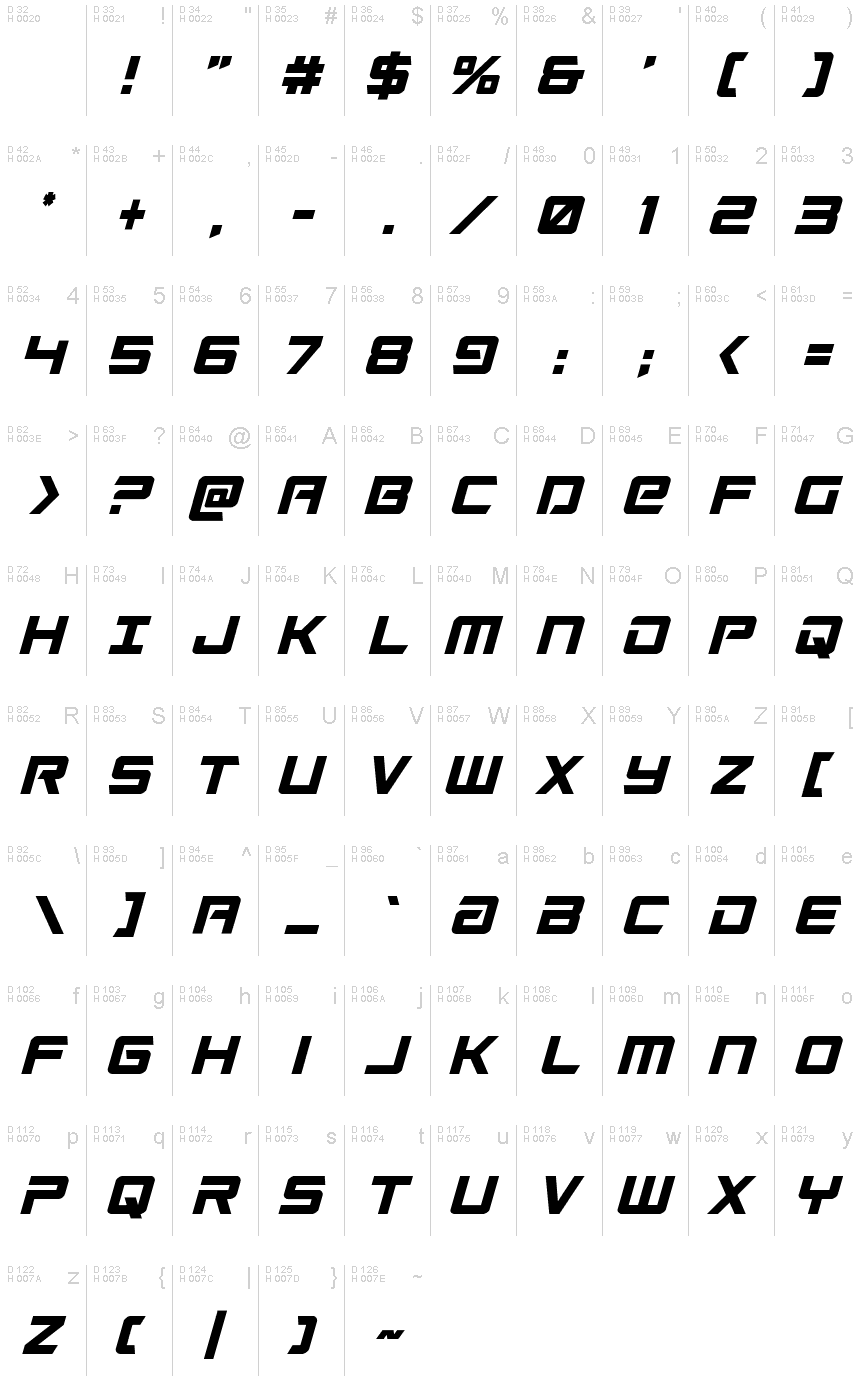
Captain Falcon Condensed Ital
The Captain Falcon Condensed Italic font, designed by Iconian Fonts, is a visually captivating display font. With its futuristic style and semi-bold weight, this font is perfect for projects that require a modern and edgy look. Its expanded width adds a sense of dynamism and energy to any design. Whether you're creating bold headlines for tech magazines, designing sci-fi movie posters, or crafting futuristic gaming logos, Captain Falcon Condensed Italic is the ideal choice to make your projects stand out from the crowd.